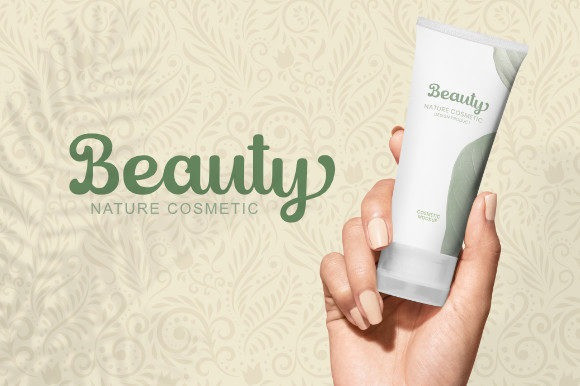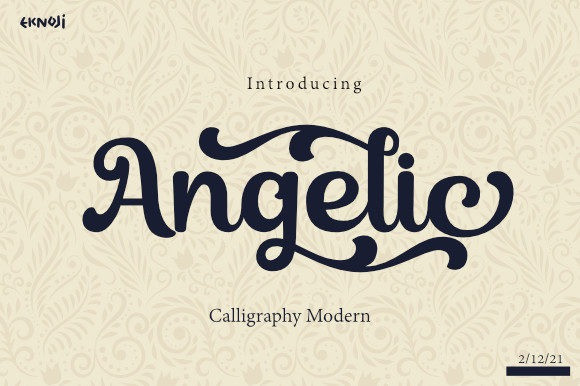
Angelic Font
Angelic Font is a swirly and pretty handwritten font, perfectly balanced and varied to meet all your expectations. Use this beautiful typeface to add a natural and stylish flair to books, magazines, invitations, marketing materials, and more.